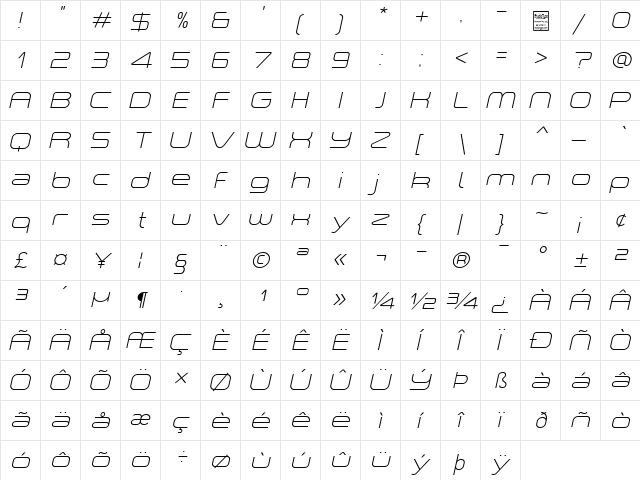
a峰ace light Italic Font Preview
Design Context for a峰ace light Typeface
a峰ace light offers clean, dependable letterforms without strong stylistic allegiance, making it a practical choice for designers who need flexibility. The slanted form adds forward momentum and visual energy. Its slender proportions lend an understated elegance to any composition.
Pro Tip: Try a峰ace light for annotation and caption copy alongside an upright companion — the contrast in angle creates a dynamic but ordered typographic system.